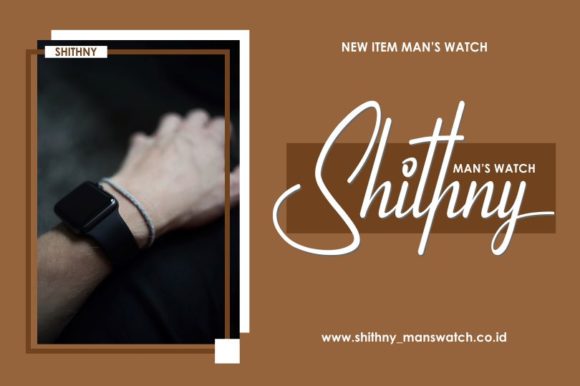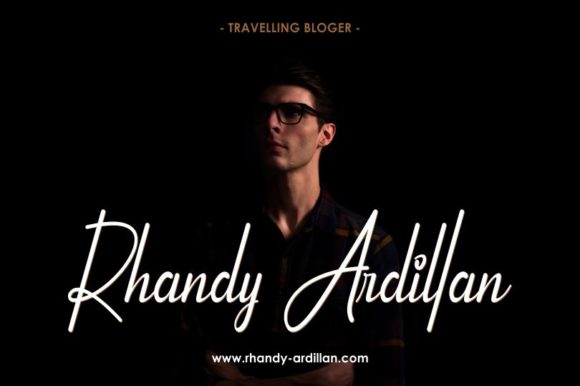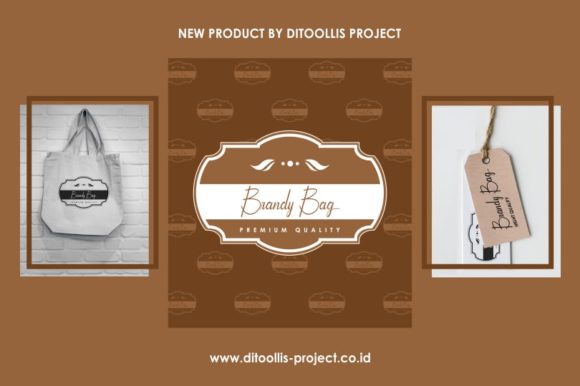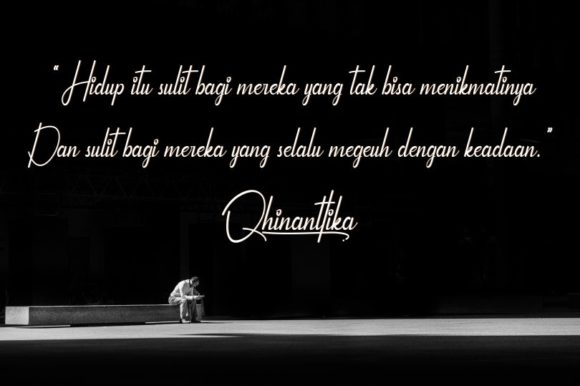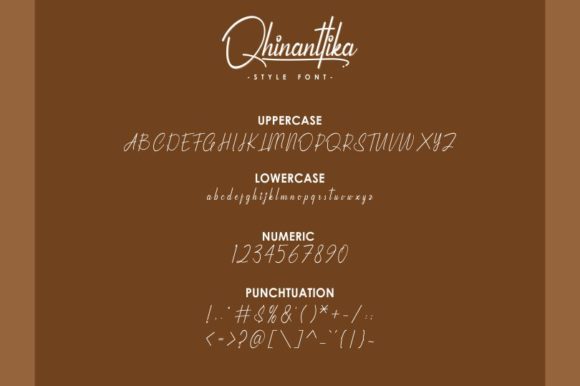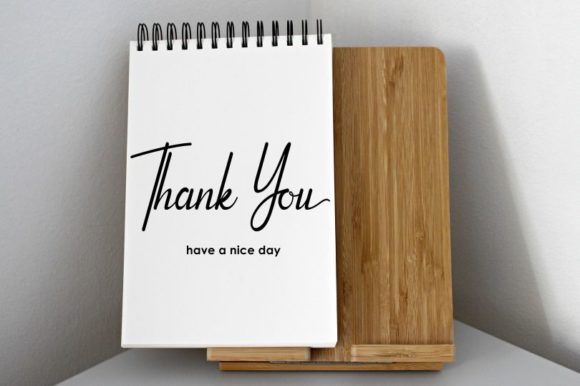
HomeScript FontsQhinanttika Font Script Fonts Qhinanttika Font FacebookXPinterestWhatsApp Qhinanttika Font Poster 2 Qhinanttika Font Poster 3 Qhinanttika Font Poster 4 Qhinanttika Font Poster 5 Qhinanttika Font Poster 6 Qhinanttika Font Poster 7 About Qhinanttika Font Qhinanttika is a bold, yet elegant handwritten font with a unique twist. Get inspired by its beautiful feel. DOWNLOAD NOW People also explored Card Player Font Enchanting Font Wicked Dream Modern Handwritten Script Font Birdinaire Font Wonderful Lovely Font Valentine Together Font Christmas Font Yves Yvespainting Font Morning Gerbera Daisy Font 350 0 TagsQhinanttika Font Previous articleGood Selection Duo FontNext articleAmetha Font LEAVE A REPLY Cancel reply Comment: Please enter your comment! Name:* Please enter your name here Email:* You have entered an incorrect email address! Please enter your email address here Website: Save my name, email, and website in this browser for the next time I comment. Personal Use Free Cuttie Personal Use Free Read more about this font Sweet Someday Personal Use Free Read more about this font Deftone Personal Use Free Read more about this font Knox Personal Use Free Read more about this font BLOG Exploring Font Trends Shaping Communication in the Digital Era Fonts, like all design elements, are subject to trends. They play a crucial role in communicating a brand's personality,... How to Cut Any Font on Cricut: Convert a Font to SVG (Free) Using Fonts in Digital Marketing: Tips to Strengthen Your Brand Identity Top 7 Google Fonts Alternatives for Faster and Privacy-Friendly Web Design (2025)